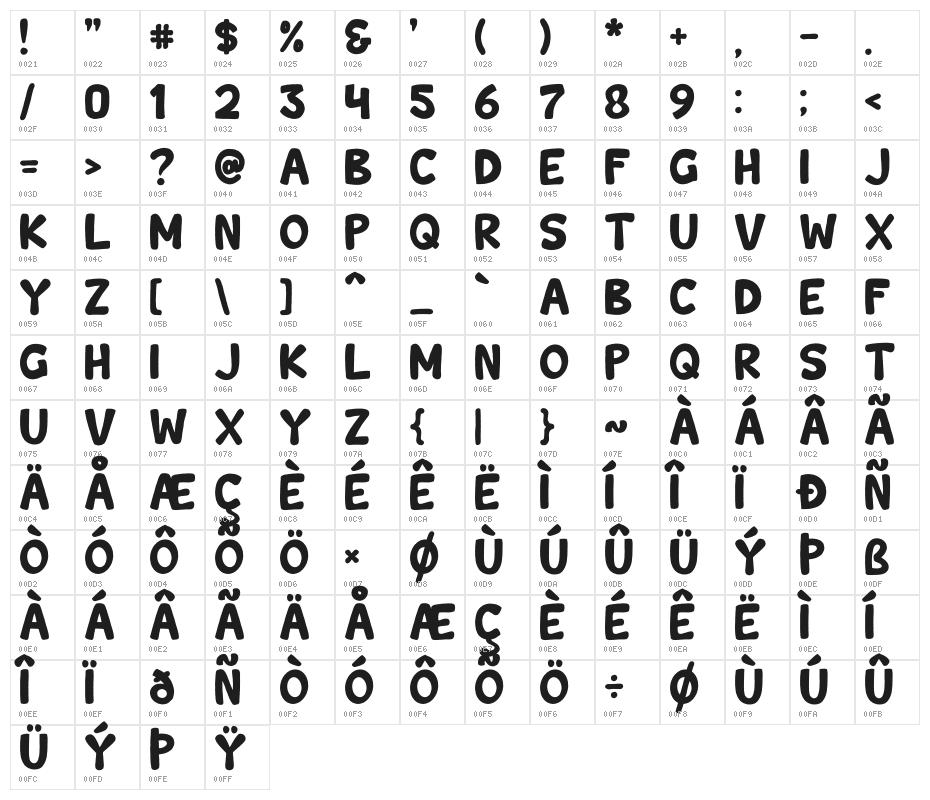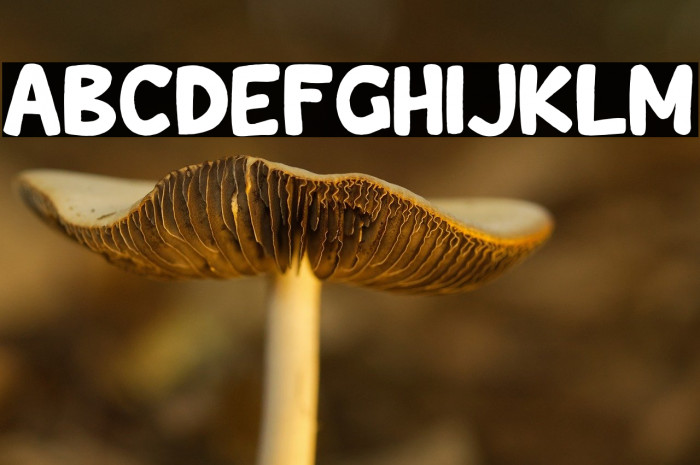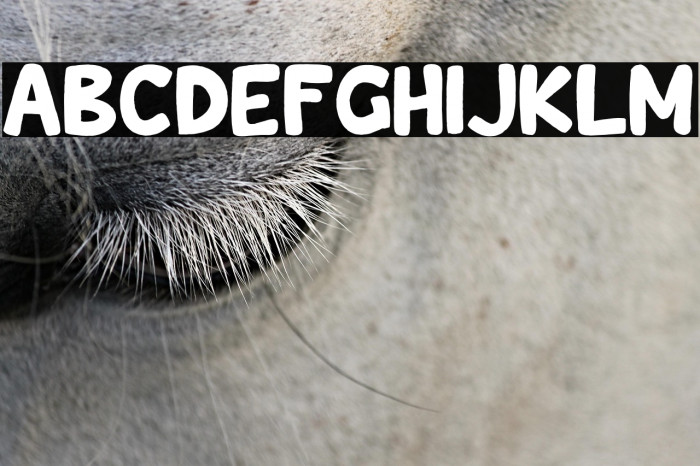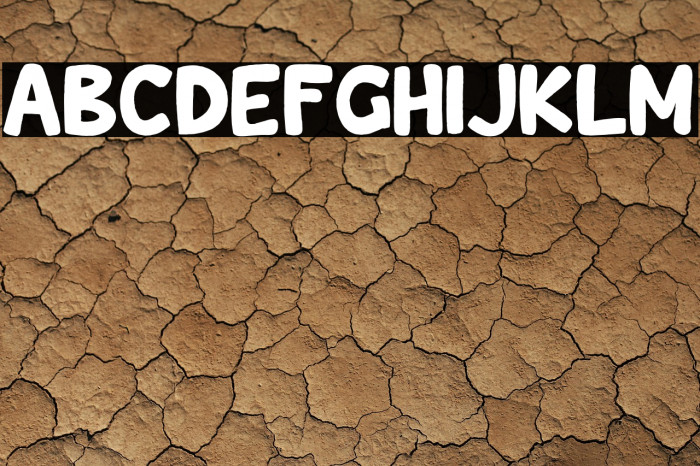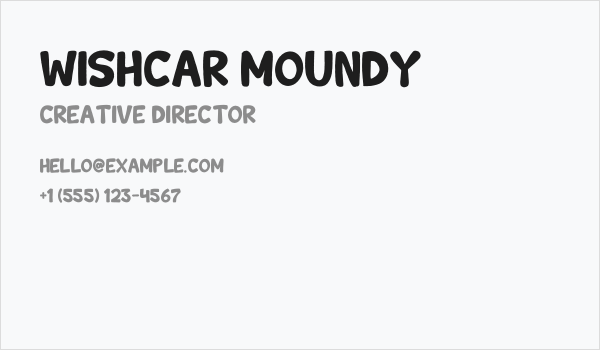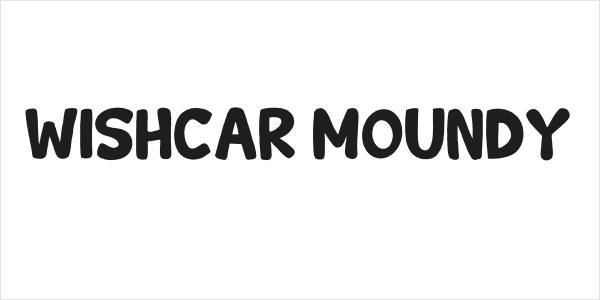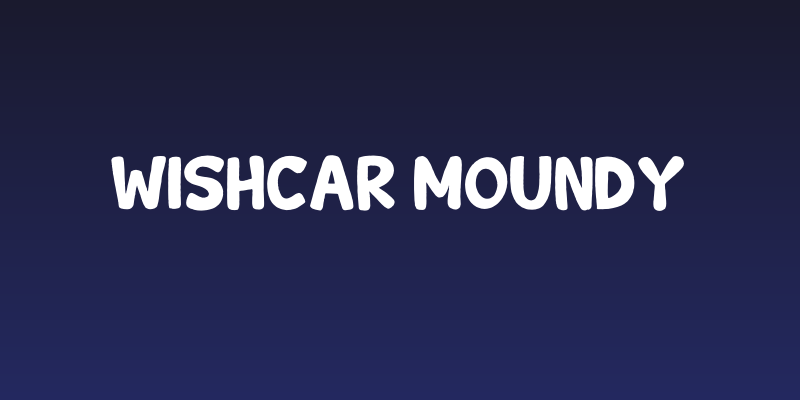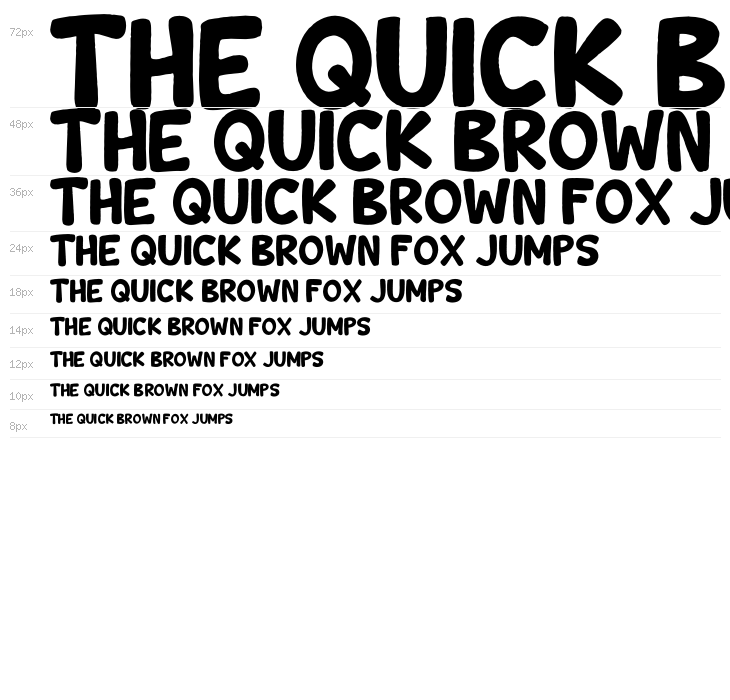
Wishcar Moundy Font
Wishcar Moundy Description
This font features a bold and playful style with rounded edges and a slightly irregular form, giving it a hand-drawn appearance. The characters are thick and substantial, providing a strong visual impact. The uppercase and lowercase letters maintain a consistent weight, while the numerals and special characters complement the overall aesthetic. The font's informal and friendly vibe makes it suitable for creative and casual applications.
| Overall Style | Playful, Casual |
| Proposed Projects | Ideal for children's books, playful branding, posters, and greeting cards. |